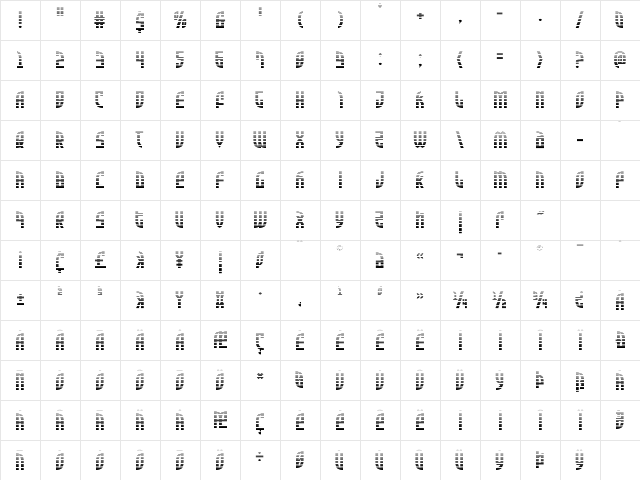
Zone Rider Gradient Regular
Zone Rider Gradient Family
Complete Zone Rider Gradient Regular glyph index. Displaying only characters natively supported by Zone Rider Gradient Regular font.
Design Context for Zone Rider Gradient
Zone Rider Gradient is a composed and adaptable typeface that performs quietly and consistently across a wide range of design contexts.